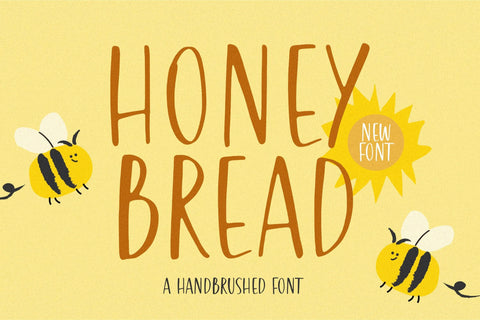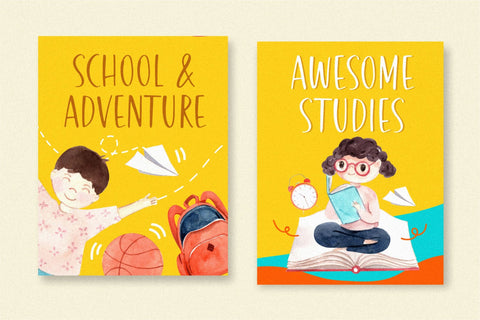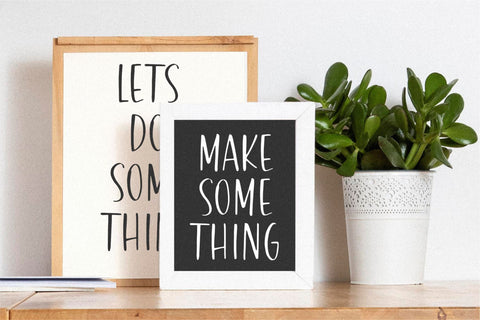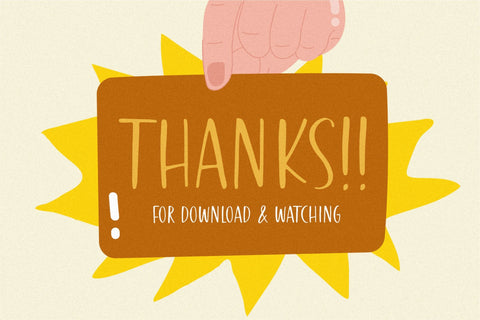
Honey Bread Font
Honey Bread is a Handbrushed Font.
Whether you’re using it for crafts, digital design, presentations, or making greeting cards, this font has the potential to become your favorite go-to font, no matter the occasion!
This font only has allcaps letters.